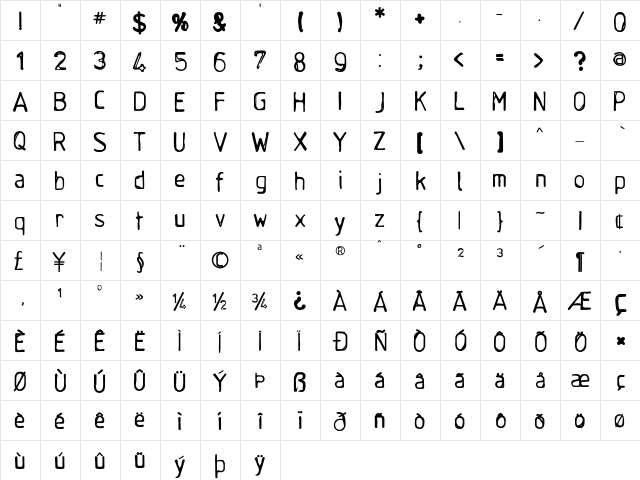
Boomshanker Solid
Design Context for Boomshanker Typeface
Boomshanker is a composed and adaptable typeface that performs quietly and consistently across a wide range of design contexts.